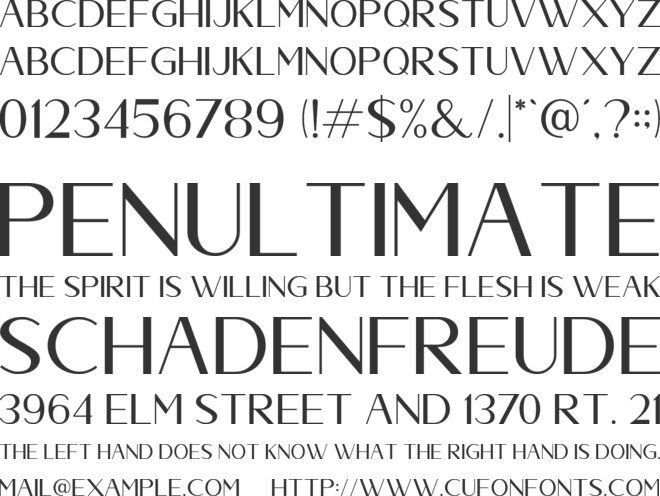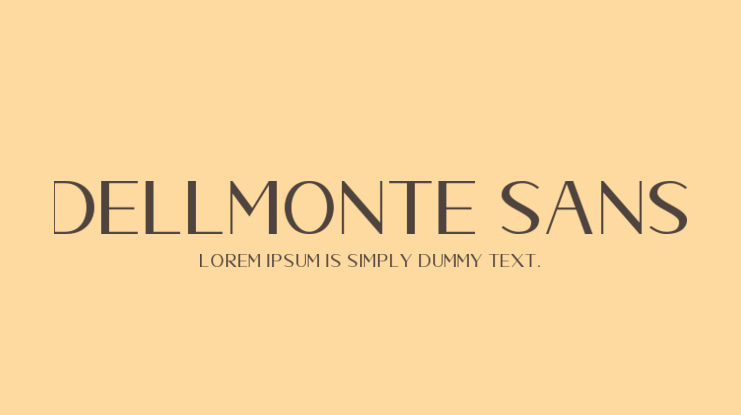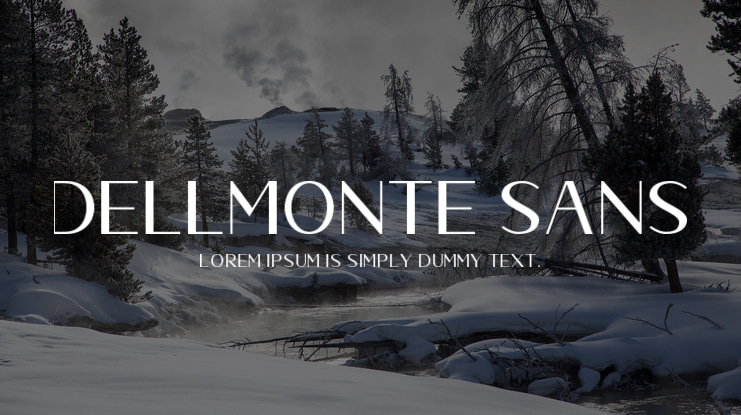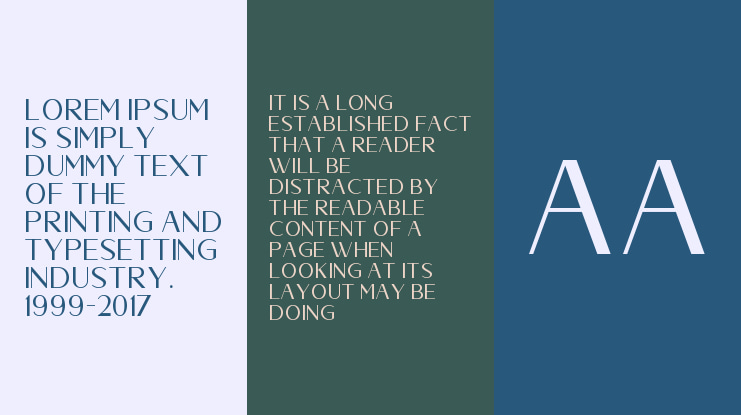
Dellmonte Sans Font
Introducing the new Dellmonte - Elegant Font Duo!
Dellmonte comes in 2 font variants, Dellmonte sans and Dellmonte script, Specific OpenType features include all caps, multilingual support (including currency symbols), 94 ligatures, standard numbers, and many others. this font perfect for any purpose, and very easy to use.